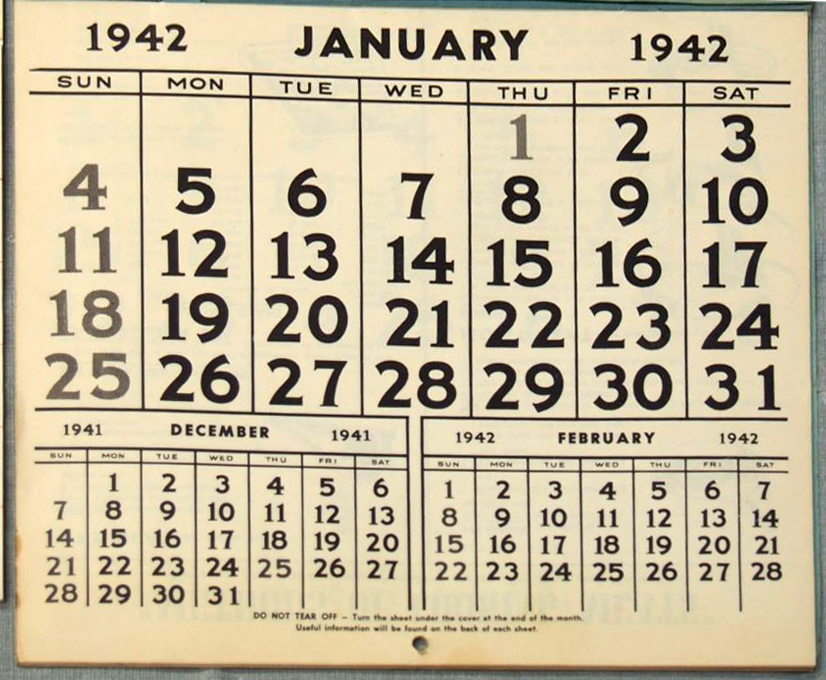
I've always liked calendars with this kind of look, and there's no precise info on this kind of font (especially the numbers). The generic font detection sites are always way off, don't take any account of the nuances, in particular the serif on this fornt... I'd like to create and print a calendar like this for myself, that's why I'm asking...
Sorry, not finding a match.
Given the date of the sample, this was likely set with moveable metal type. Up until the era of phototypesetting, custom number sets and calendar lockups could be purchased from major foundries. The numbers weren't part of a larger typeface, just stand-alone designs used specifically for such purposes (calendars, tables, etc.). They almost never survived into the phototypesetting or digital type eras.
Same here. FWIW, “JANUARY” looks like it could be in Tempo Heavy by Ludlow. I paged through a period catalog, in the hope the numerals might be by the same manufacturer, but came up empty.